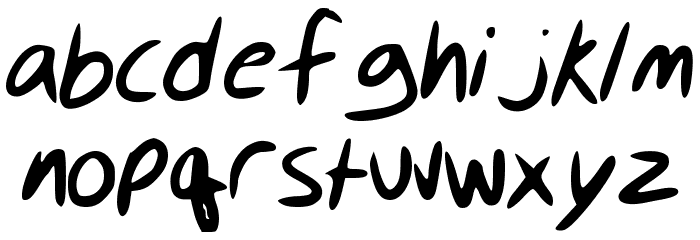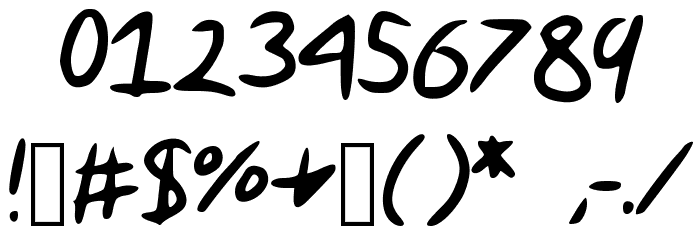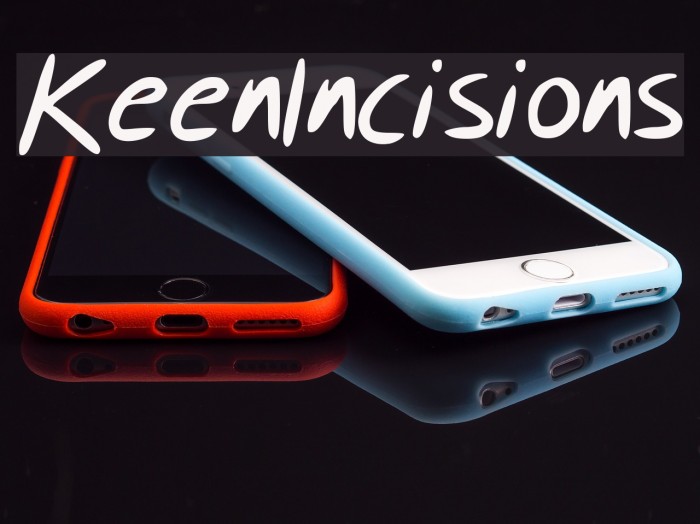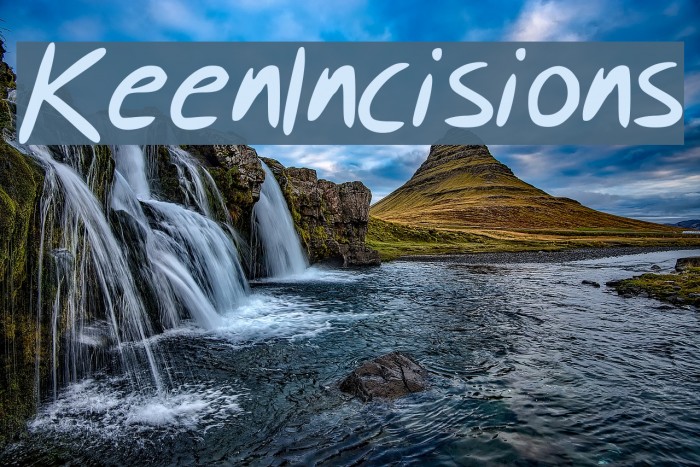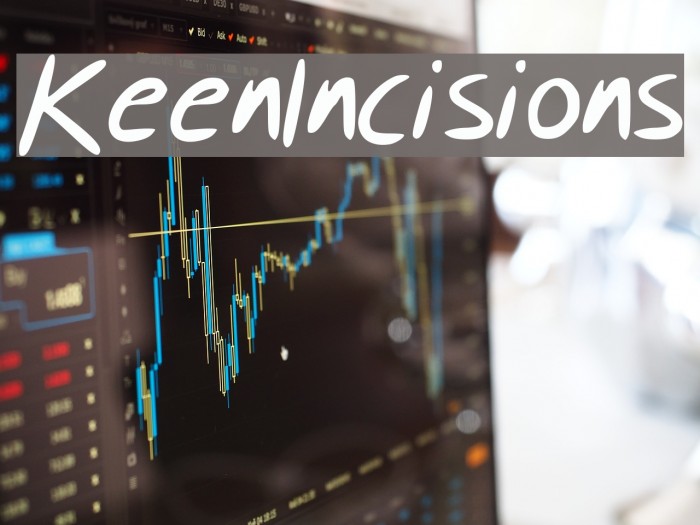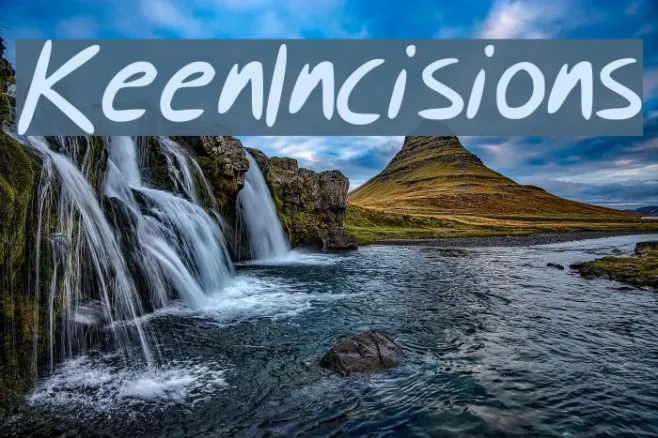
Keen_Incisions Font
This font features a playful and energetic handwritten style, characterized by its dynamic strokes and informal appearance. The letters are slightly slanted, giving a sense of movement and spontaneity. The uppercase and lowercase letters maintain a consistent flow, while the numerals and special characters complement the overall aesthetic. The strokes vary in thickness, adding a lively and personal touch to the text. This font is ideal for projects that require a casual and approachable feel, such as personal branding, creative projects, or informal communications.
A playful, handwritten font with dynamic strokes and an informal style.
- Proposed Projects: Ideal for personal branding, creative projects, informal communications, and playful designs.
- Overall Style: Casual, Playful
- Use Case: Logos, Headlines, Informal Text